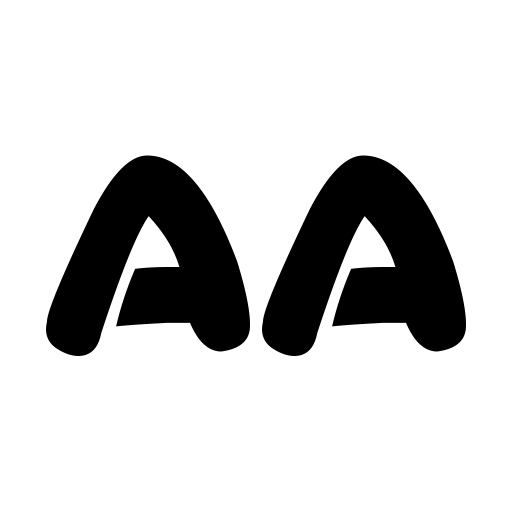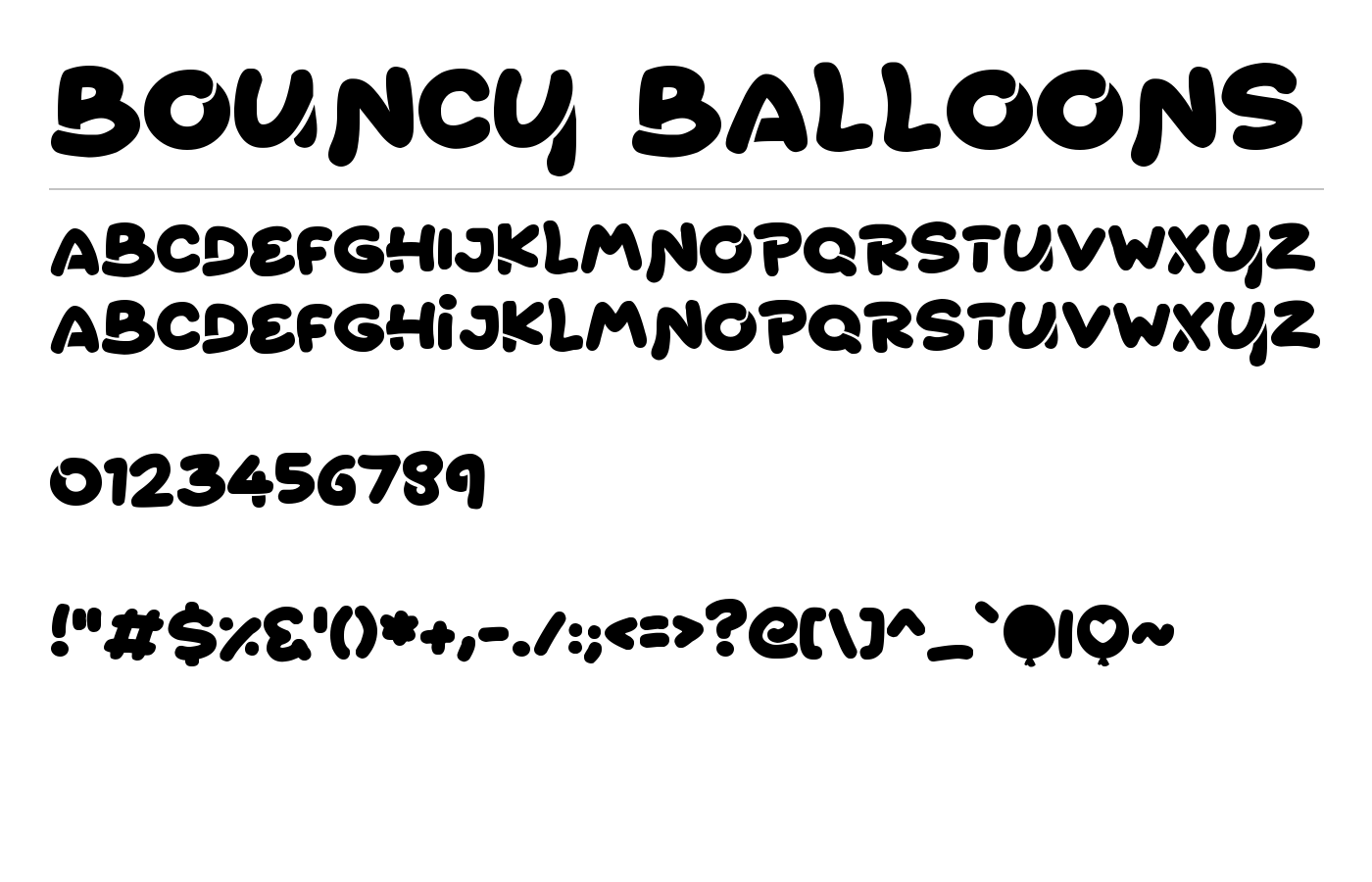
Bouncy Balloons is a bold, playful sans serif font characterized by its rounded, bubbly letterforms that evoke a sense of fun and lightheartedness. With its thick, uniform strokes and quirky shapes, this font works wonderfully for children’s designs, party invitations, and casual branding where a friendly and energetic look is desired. Its unique style adds a joyful personality, making it ideal for headlines, logos, and any creative project that aims to capture a cheerful, whimsical vibe.
Bouncy Balloons Font